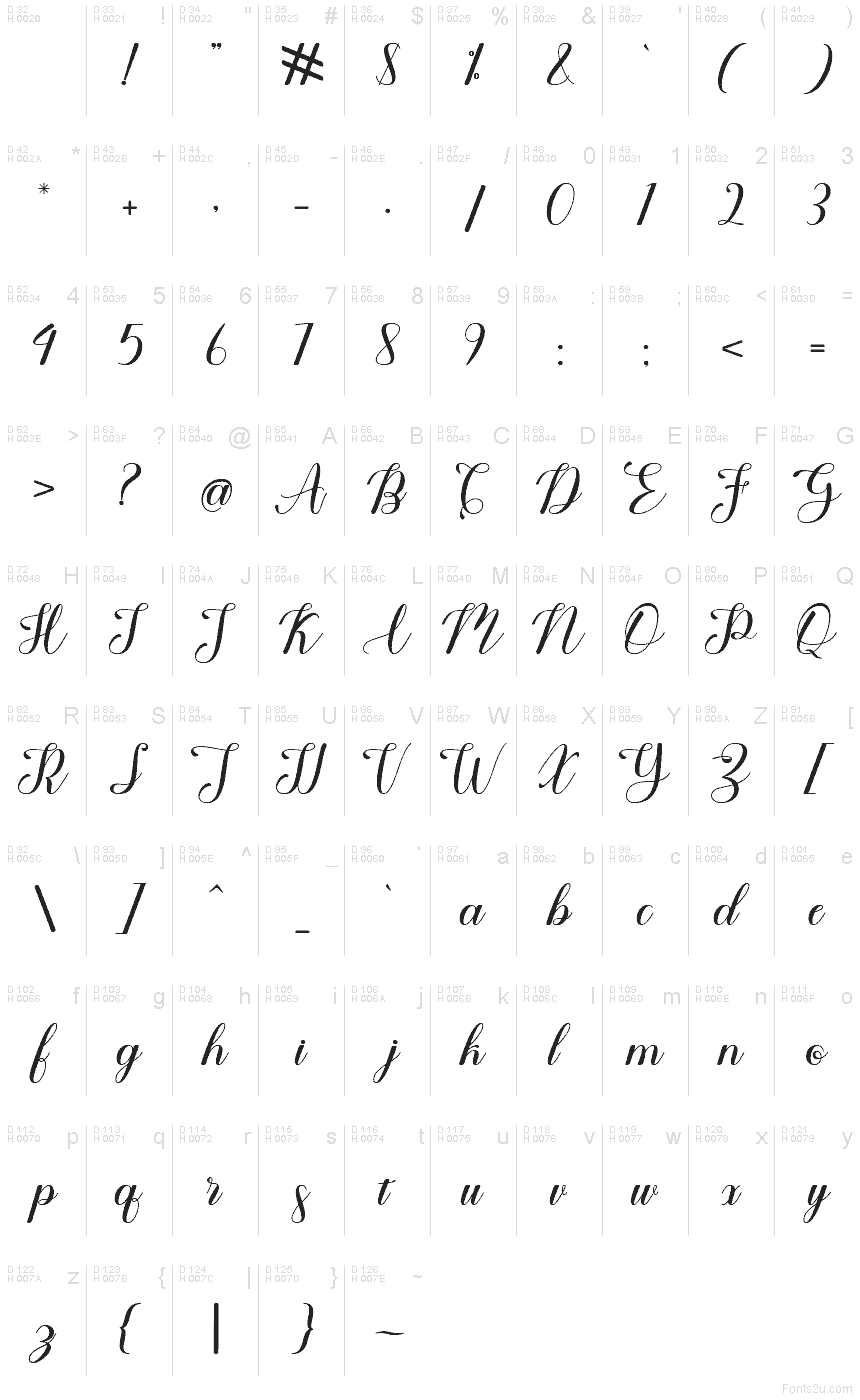
Elora Regular
Elora font by Wais Alqarni is an ornate calligraphic font designed in a classic script style. It uses its sophisticated aesthetic to impress and its flowing lines to flow easily with the tone of your project. The elegant font transforms any design into an epic artwork, sending the word out there with a memorable effect thanks to its graceful curves.